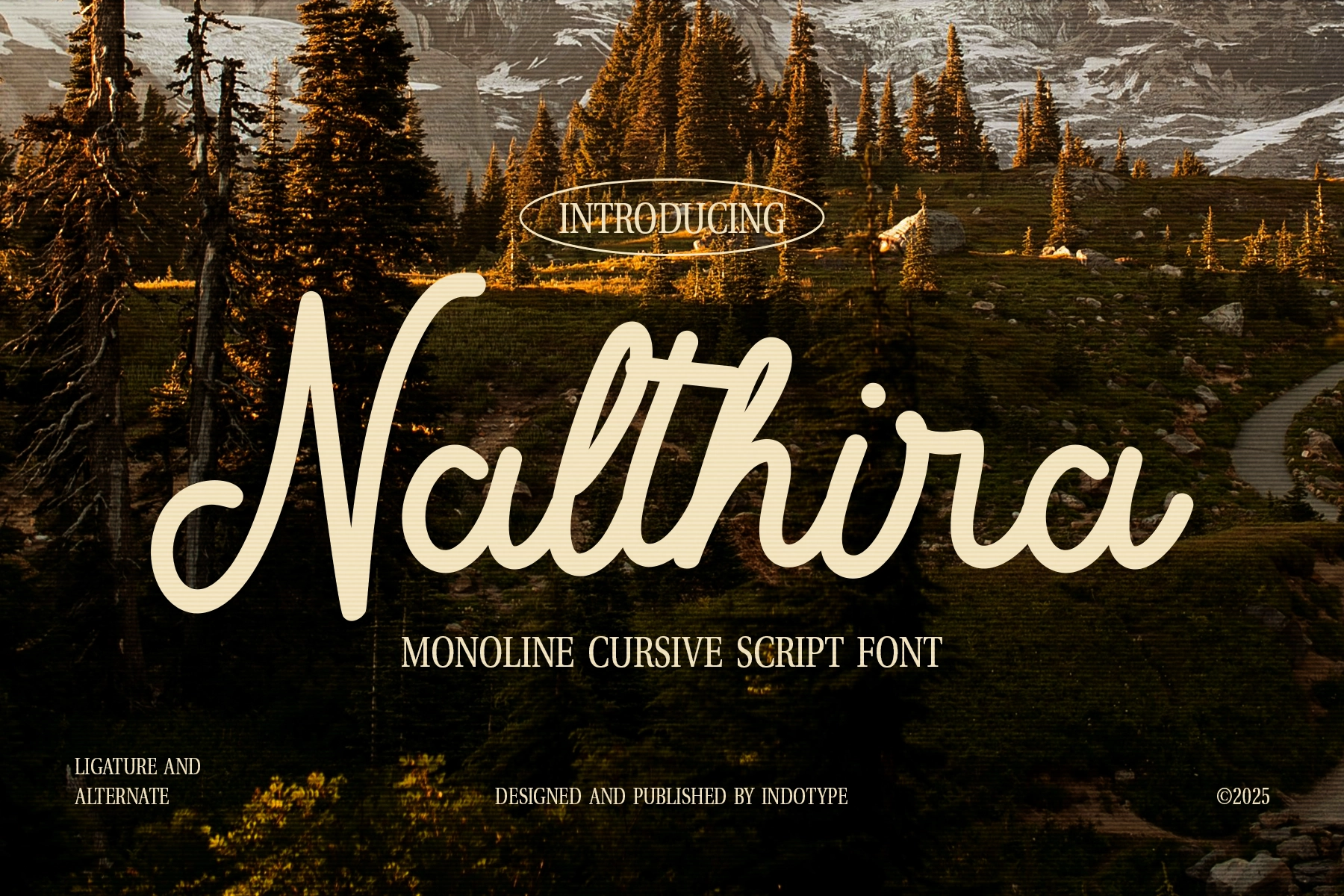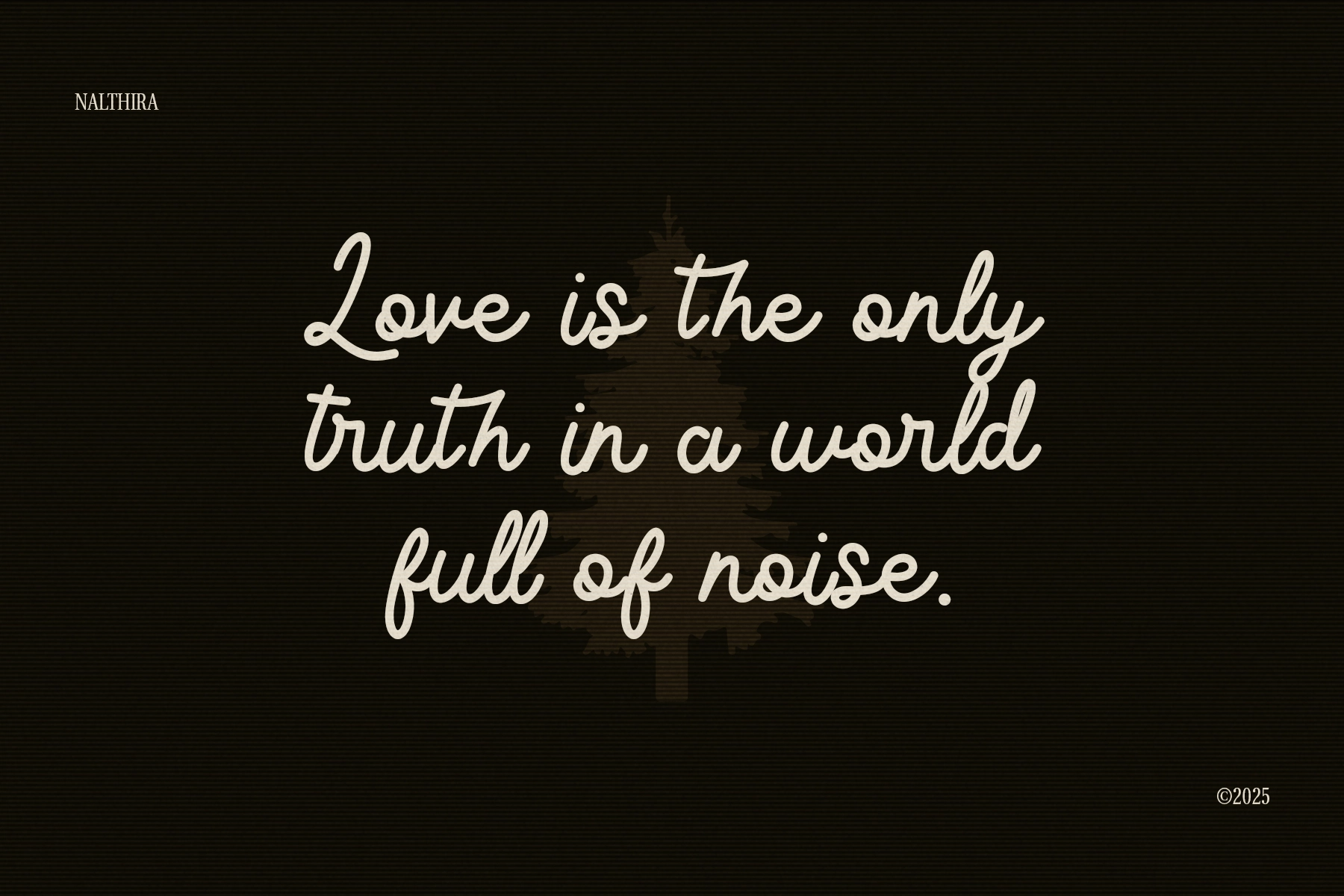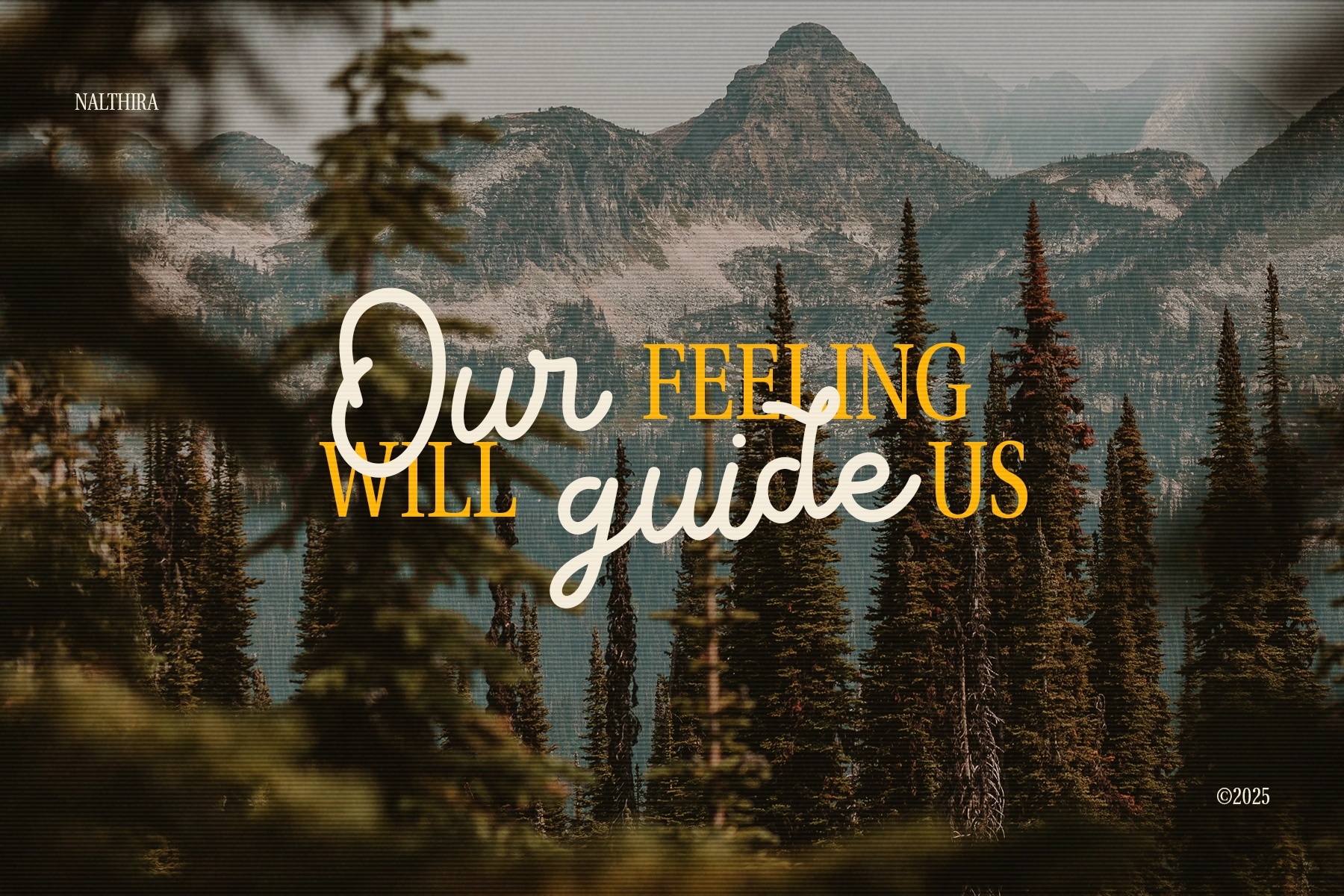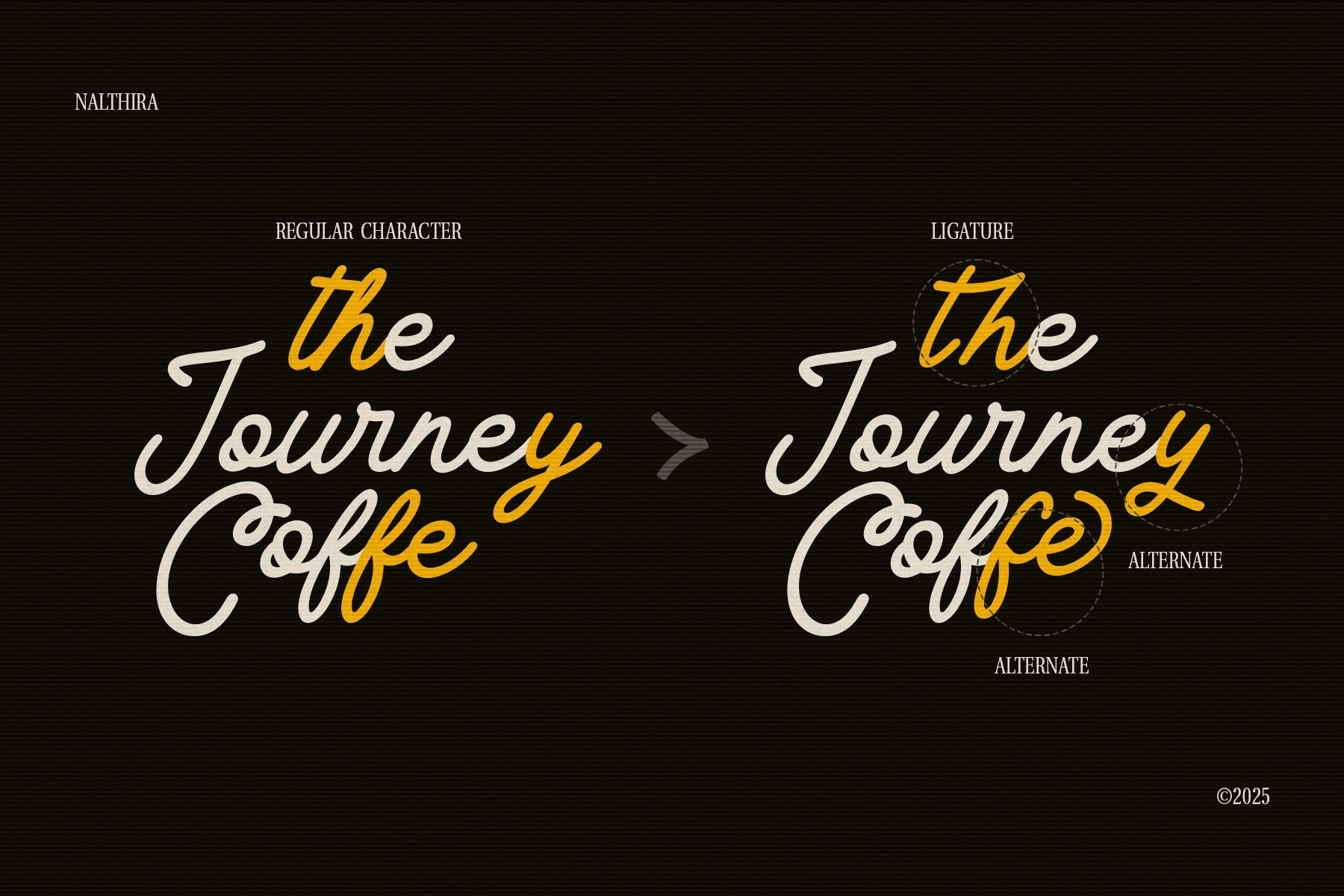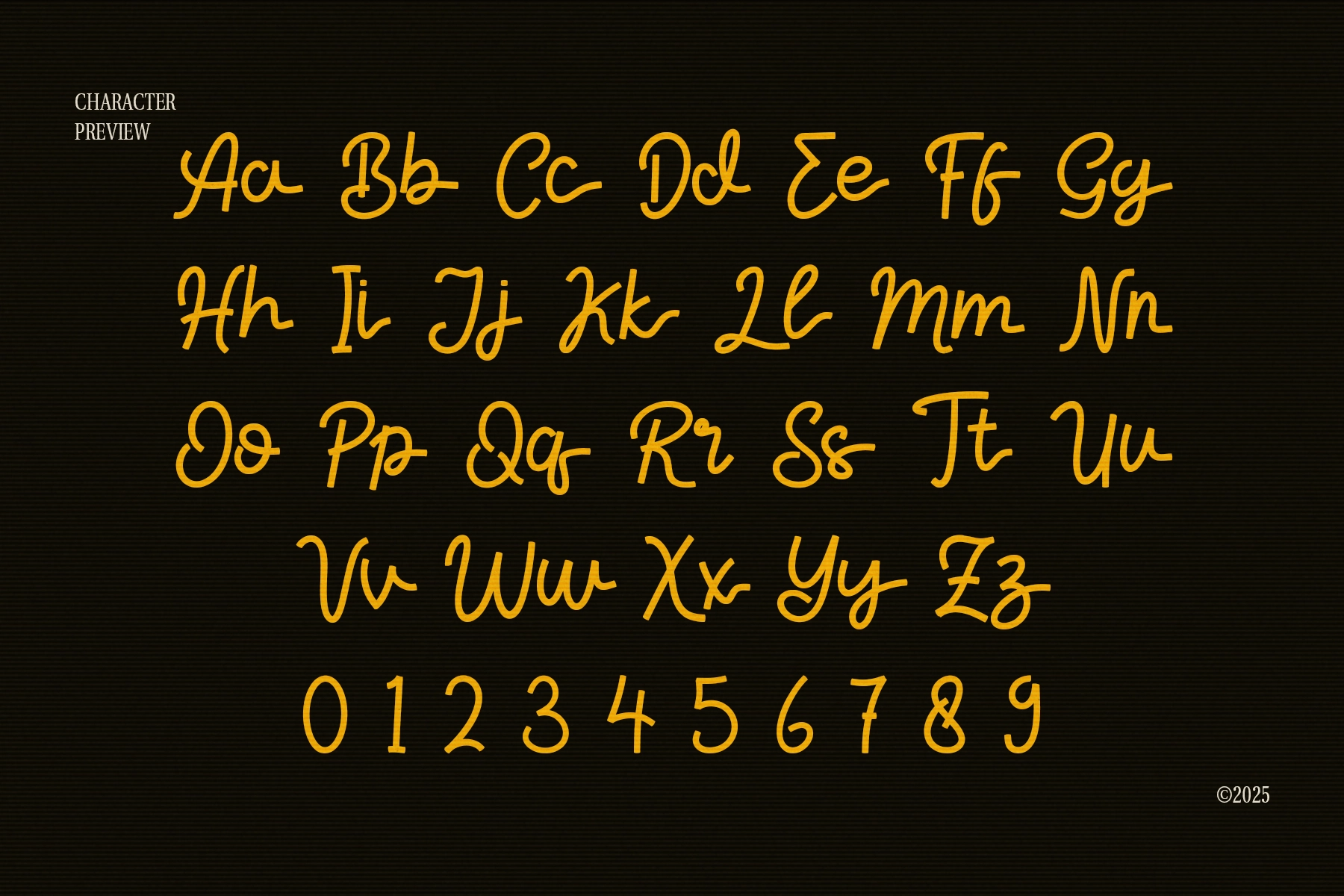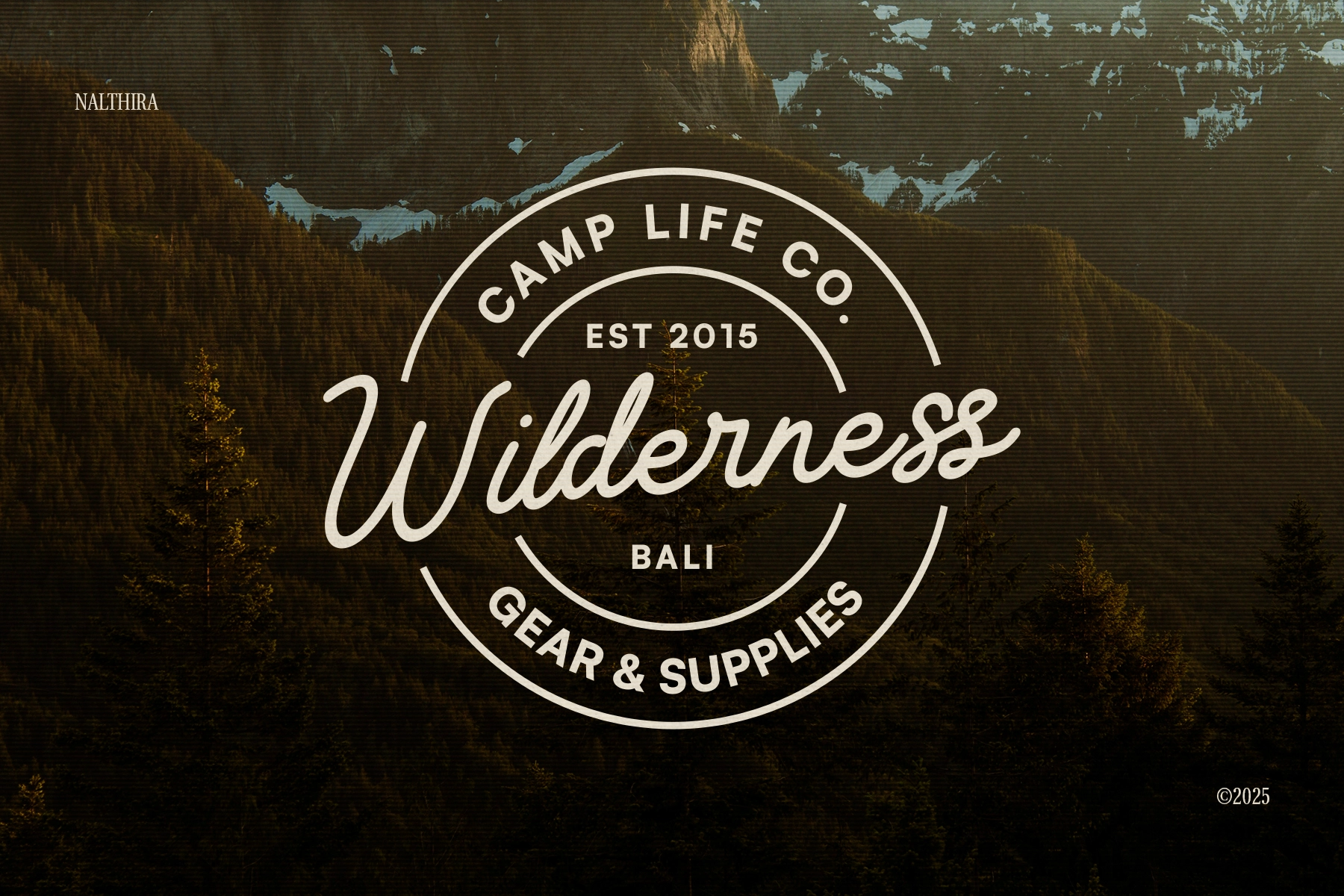
Nalthira - Monoline Cursive Script Font
This script font has smooth monoline strokes, connected letterforms, and a graceful handwritten rhythm. Its cursive shapes are warm and polished, with long swashes, clean loops, and a romantic pace suited for expressive display typography.
Nalthira works well for wedding invitations, personal logos, quote prints, greeting cards, boutique packaging, candle labels, stationery, lifestyle branding, book covers, café identities, travel journals, social media graphics, and editorial titles. The ligatures and alternates add variety to key words, so names, headlines, and short phrases can look custom without requiring a typographic rescue mission.
- Ligatures & alternates
- Numbers